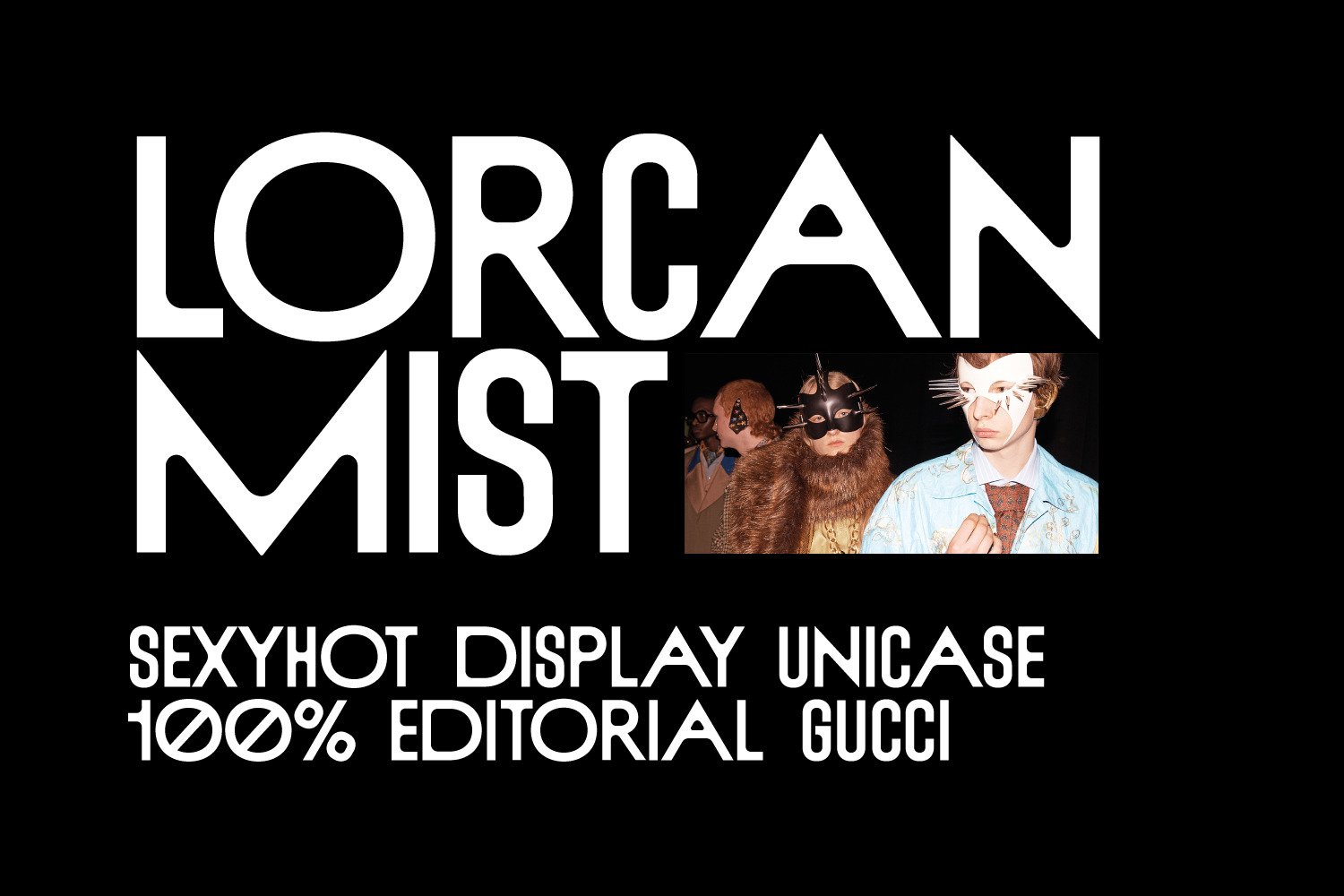
Lorcan Mist
LORCAN MIST is a powerful super modern editorial unicase font with vintage vibes, designed with love and care for amazing projects. It's great for social media, headlines, large-format print, editorial, branding, posters, fashion designs and websites — it's designed not to take too much attention but at the same time be a powerful accent. It's mysterious, elegant and sexy.
- Unicase
- Western European Languages
- Central European Languages
- Cyrillic
- Numerals, symbols, punctuation